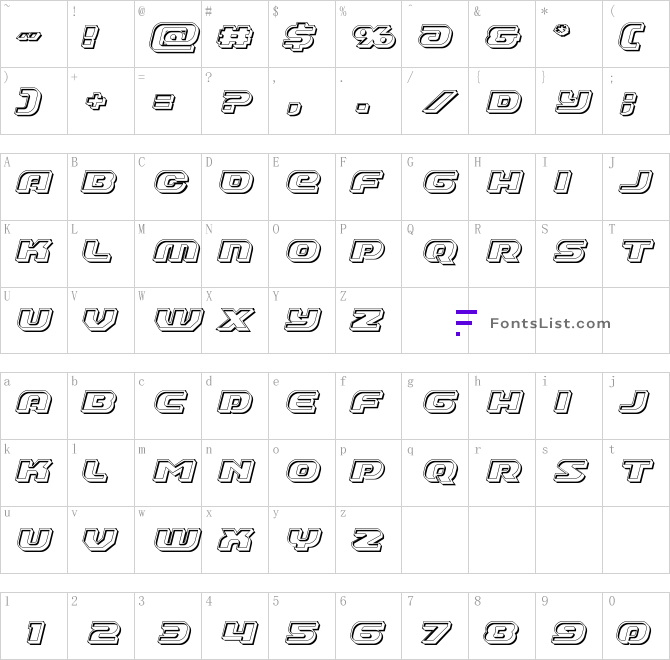
- Font Name:Annapolis Bevel Italic
Annapolis-Bevel-Italic.ttf is a very beautiful artistic font, Annapolis-Bevel-Italic.ttf is widely used in the design and printing of various books and pictures,Annapolis-Bevel-Italic.ttf has a strong visual impact,Annapolis-Bevel-Italic.ttf is a commonly used font in newspapers, magazines and books, and is used in posters, e-commerce Poster design, store design, logo design, font design and other fields.Annapolis-Bevel-Italic.